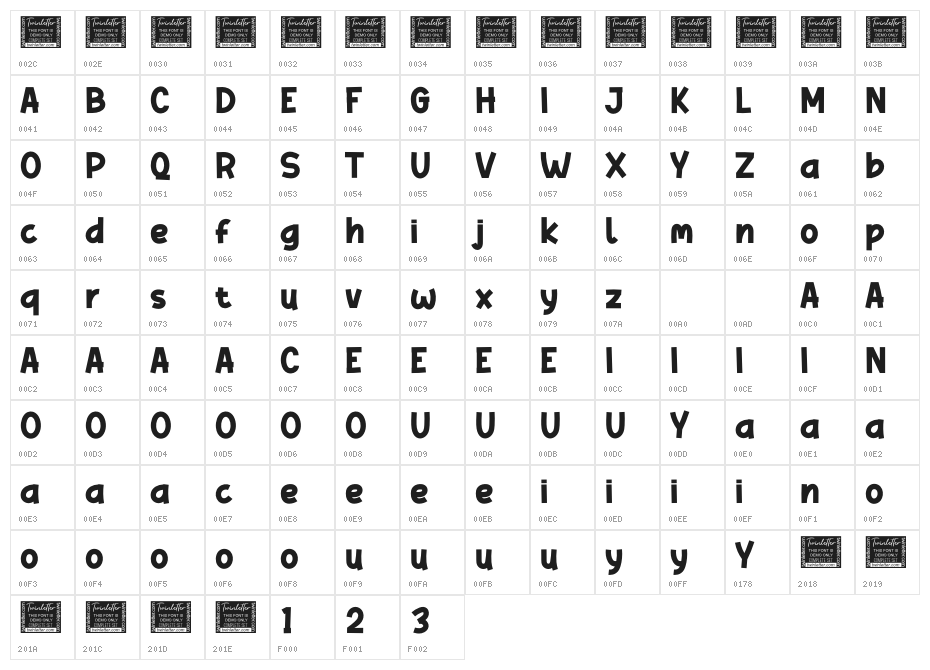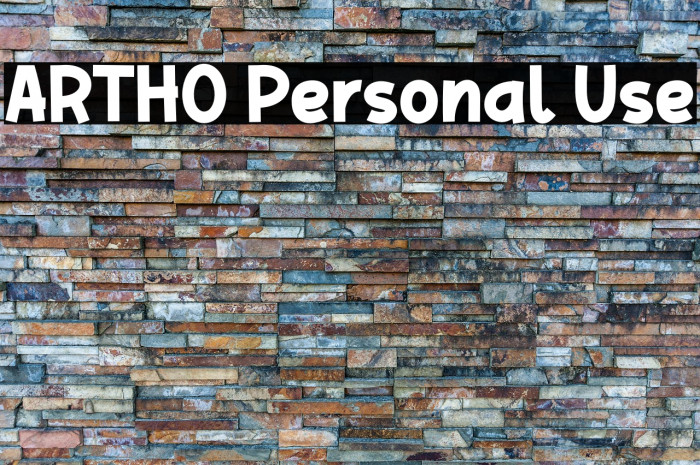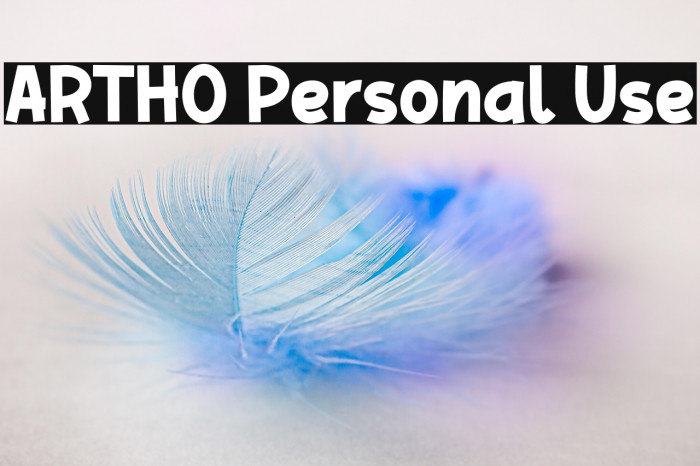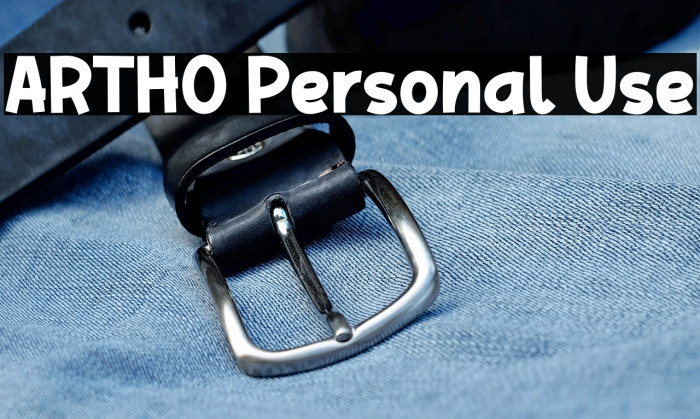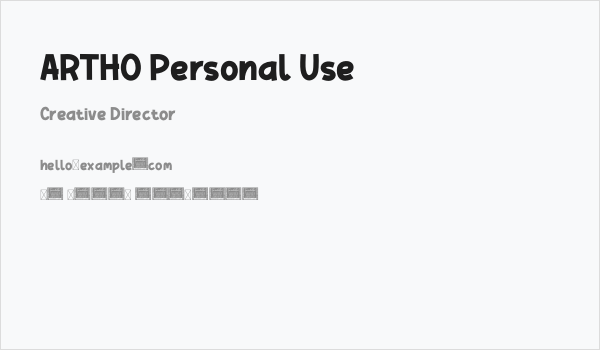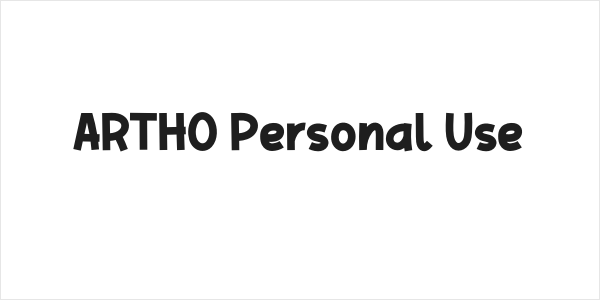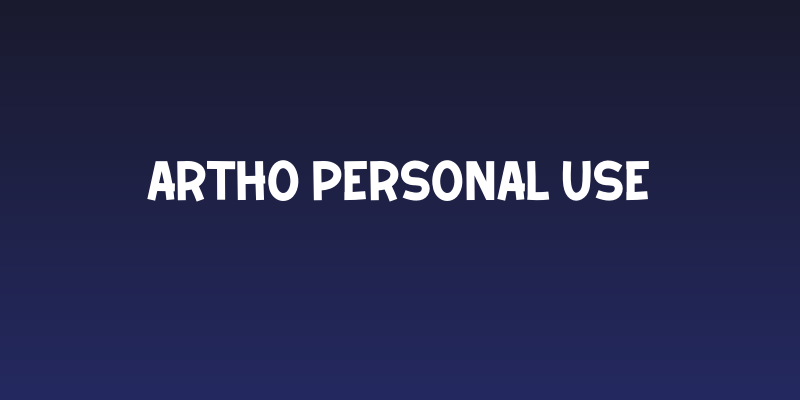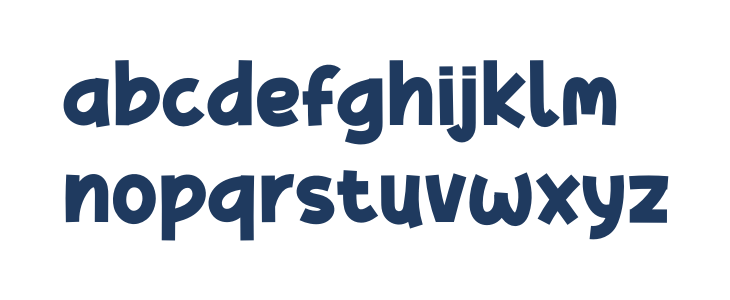
ARTHO Personal Use Font
ARTHO Personal Use Description
This font features a playful and bold design with a hand-drawn aesthetic. The characters are slightly irregular, giving them a whimsical and informal appearance. The uppercase and lowercase letters maintain a consistent style, with rounded edges and a slightly condensed form. The font's unique charm is enhanced by its uneven stroke widths, which add to its casual and friendly vibe. It is well-suited for projects that require a fun and approachable look, such as children's books, playful branding, or creative posters.
| Overall Style | Playful, Informal |
| Proposed Projects | Children's books, playful branding, creative posters, informal invitations. |